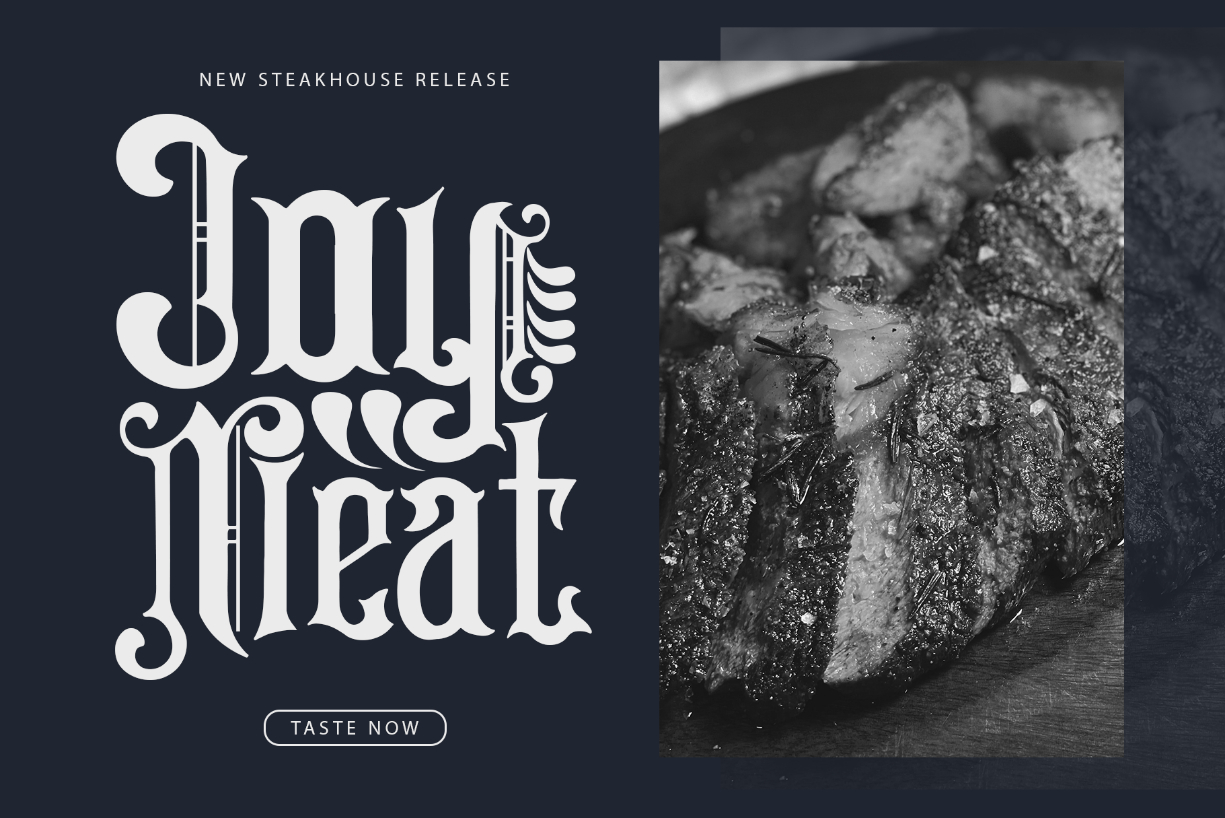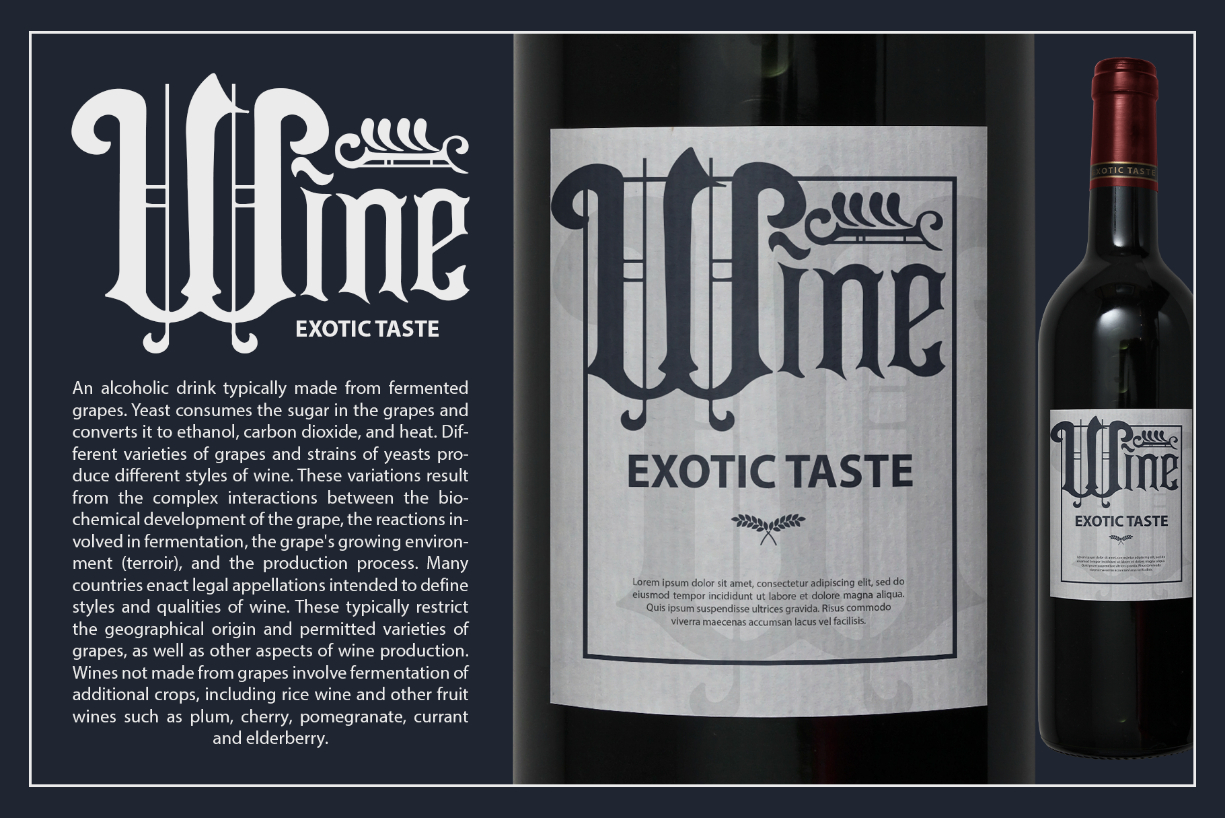
About Dark Power Font
Dark Power is a modern and playful script font. It’s great for crafters and designers. Compatible with tools such as Photoshop and Silhouette design studio. its playfulness can make it great for creative projects.
Created by Kong Font Studio